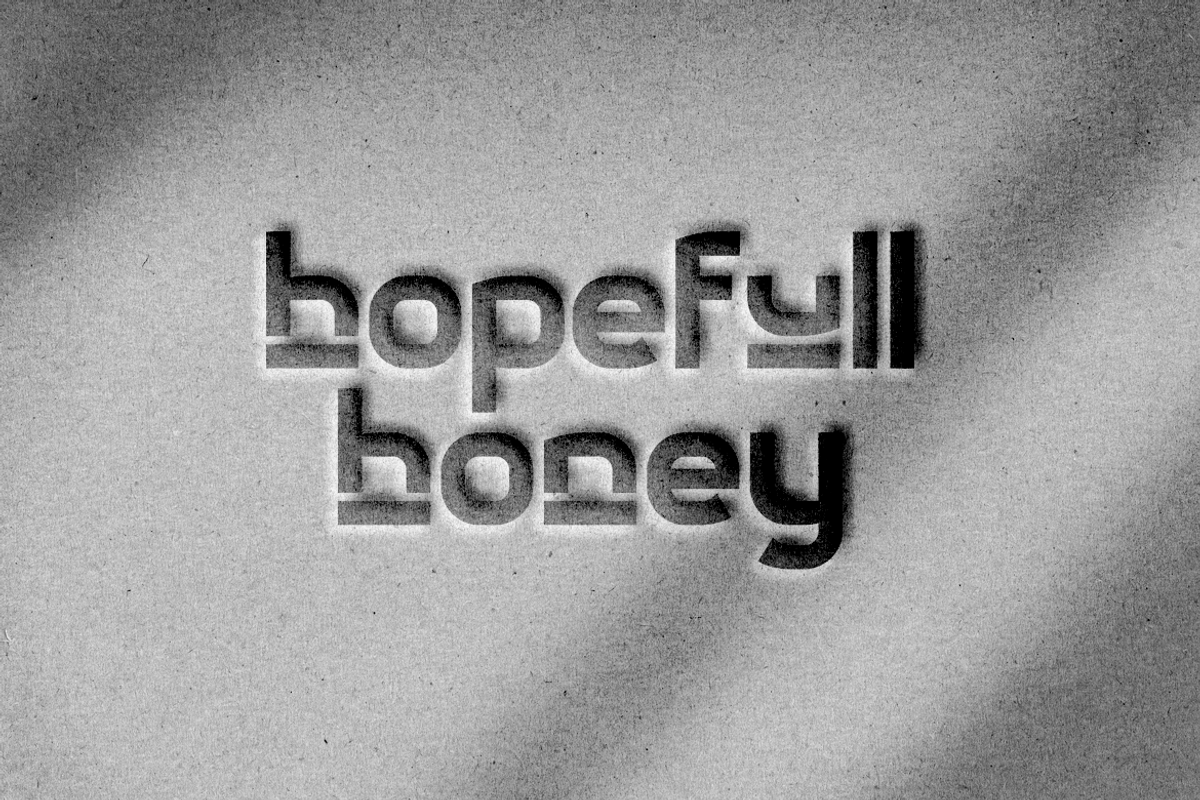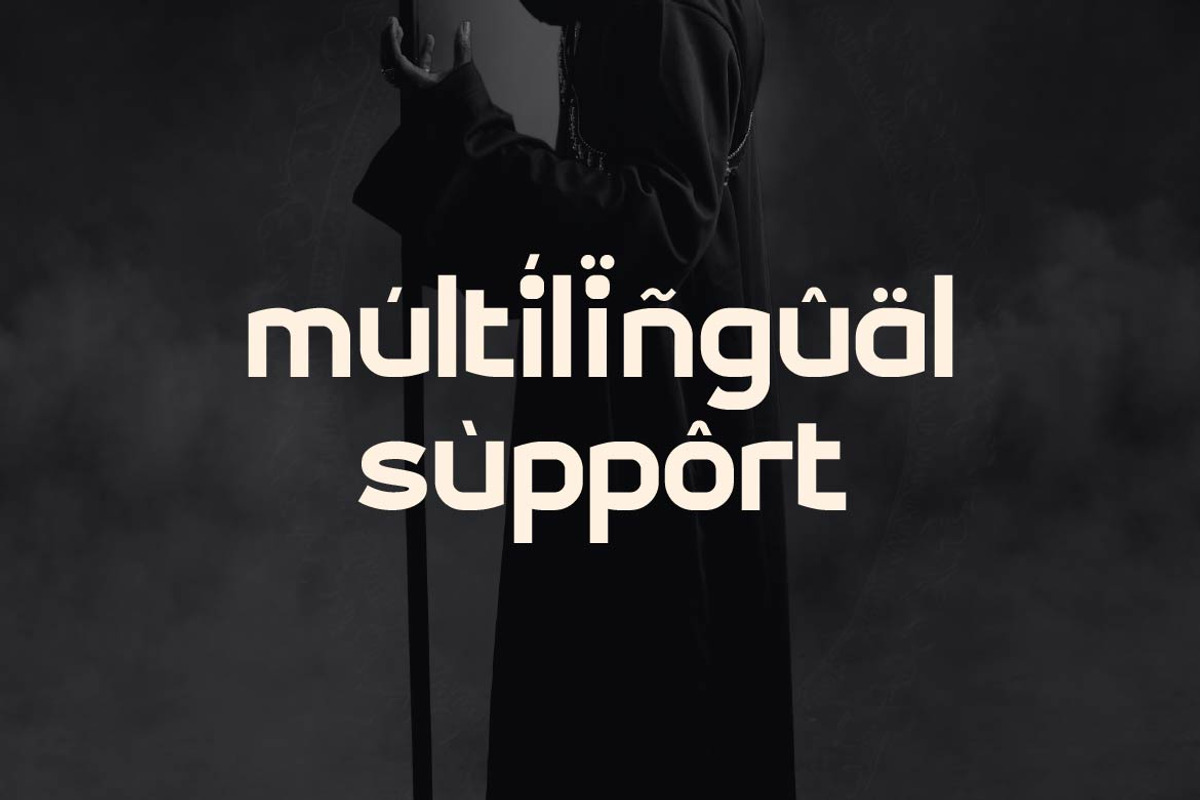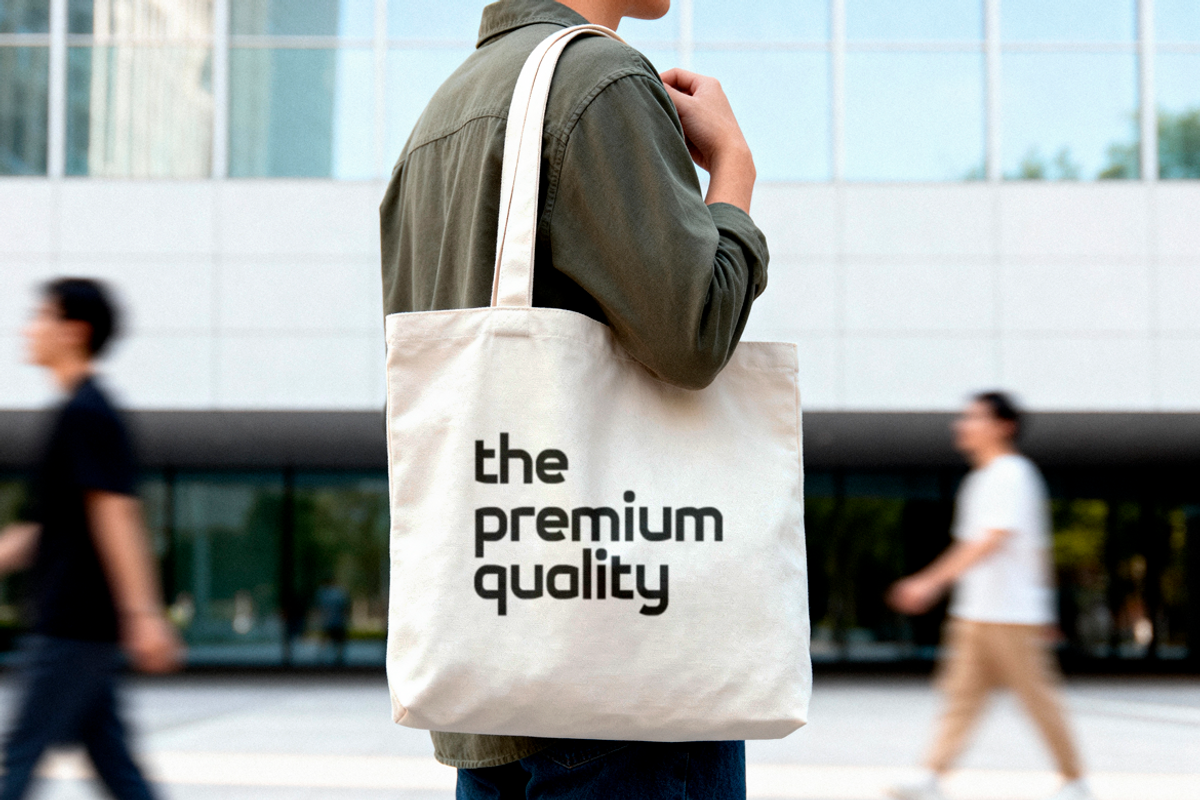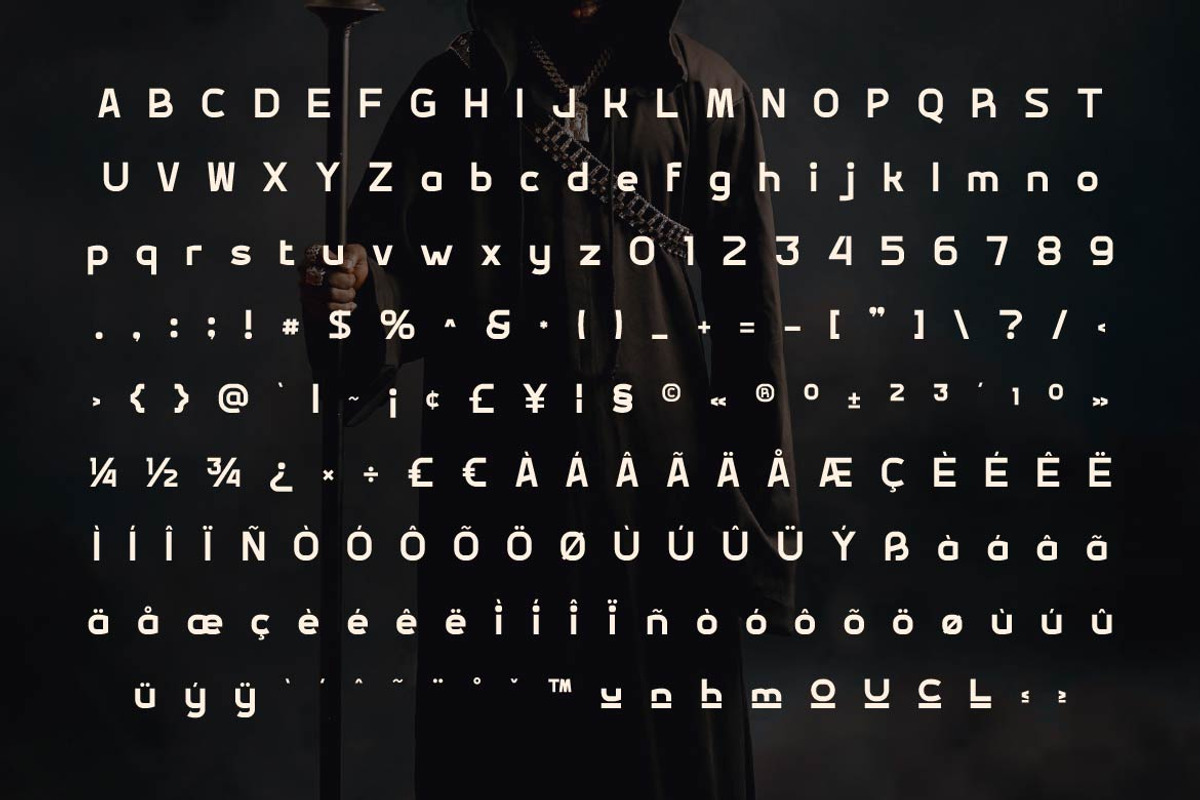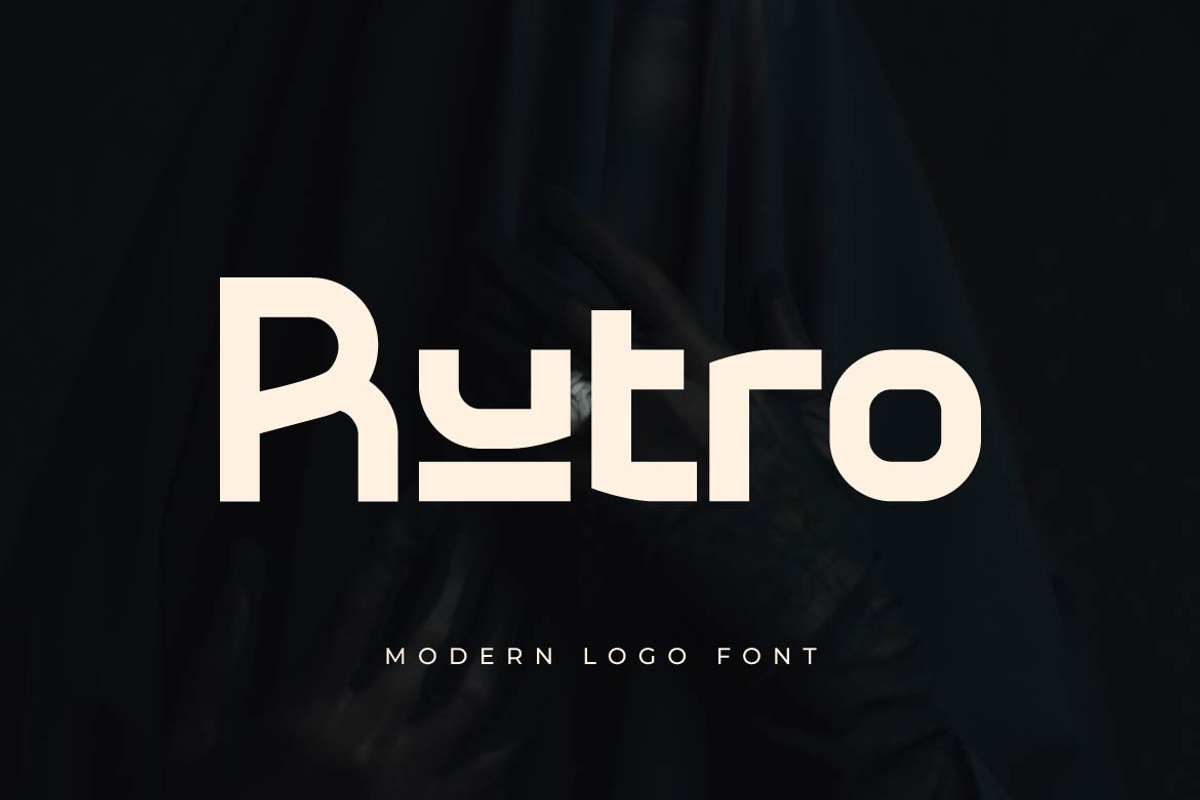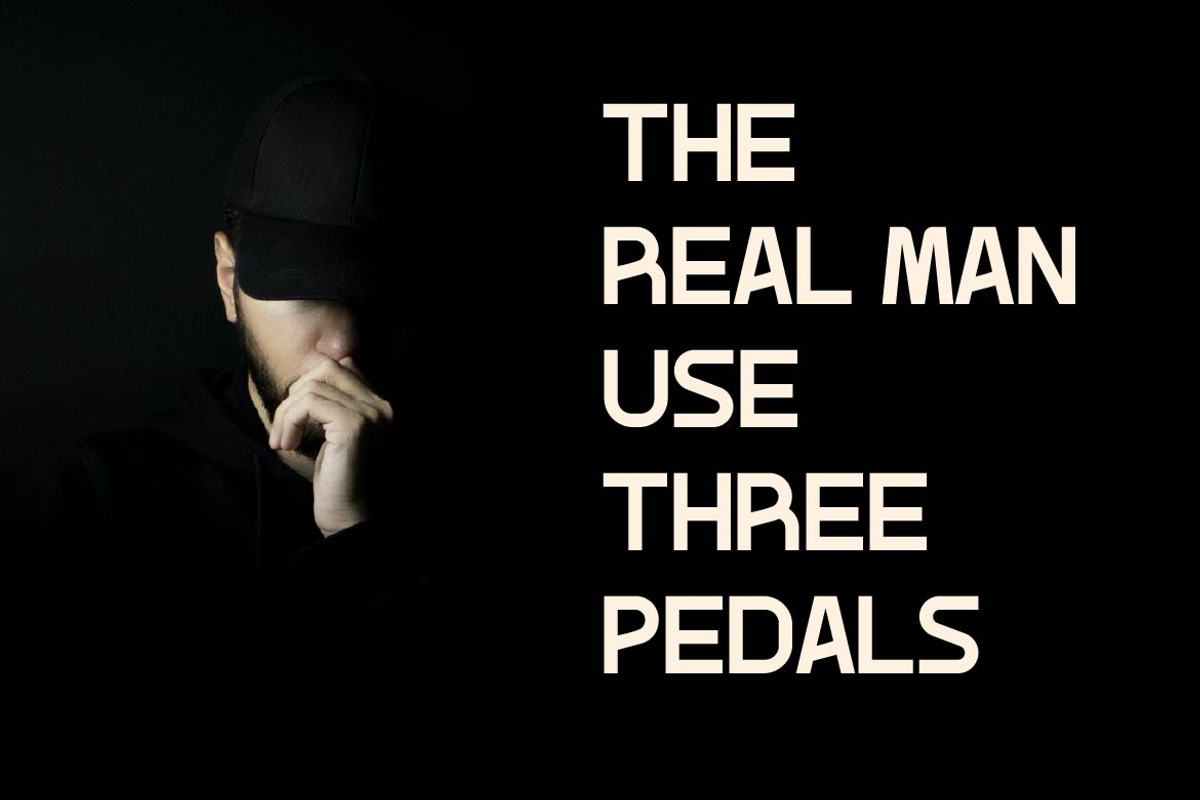
Rutro – Creative Display Sans Serif
Rutro is a creative display sans serif typeface designed to make every headline and logo unforgettable. With bold character, modern structure, and distinctive letterforms, Rutro combines creativity with clean readability, making it an excellent choice for standout visual communication.
Ton of glyphs